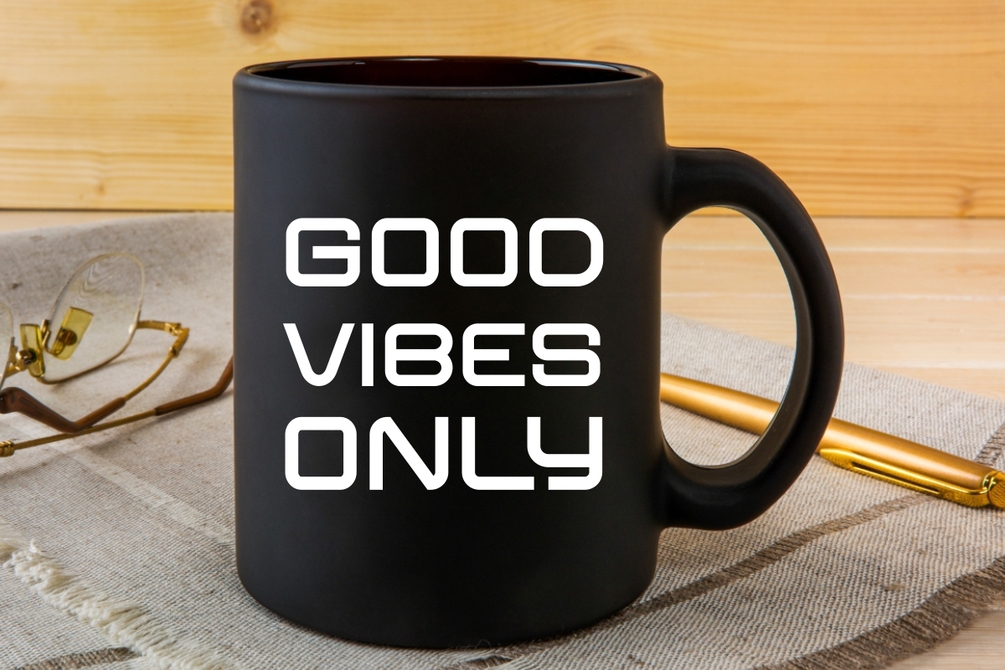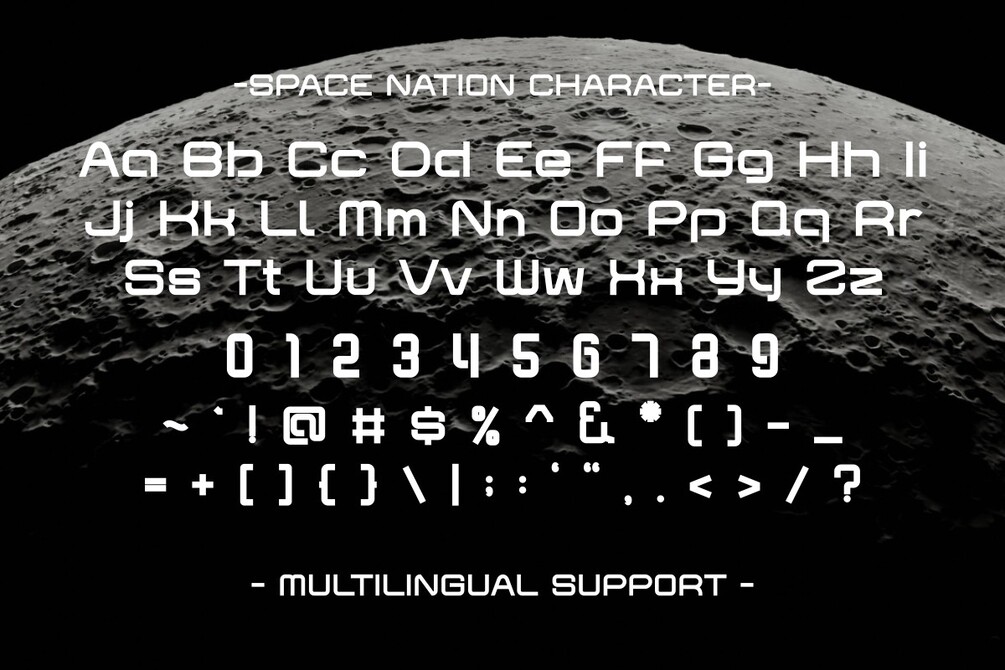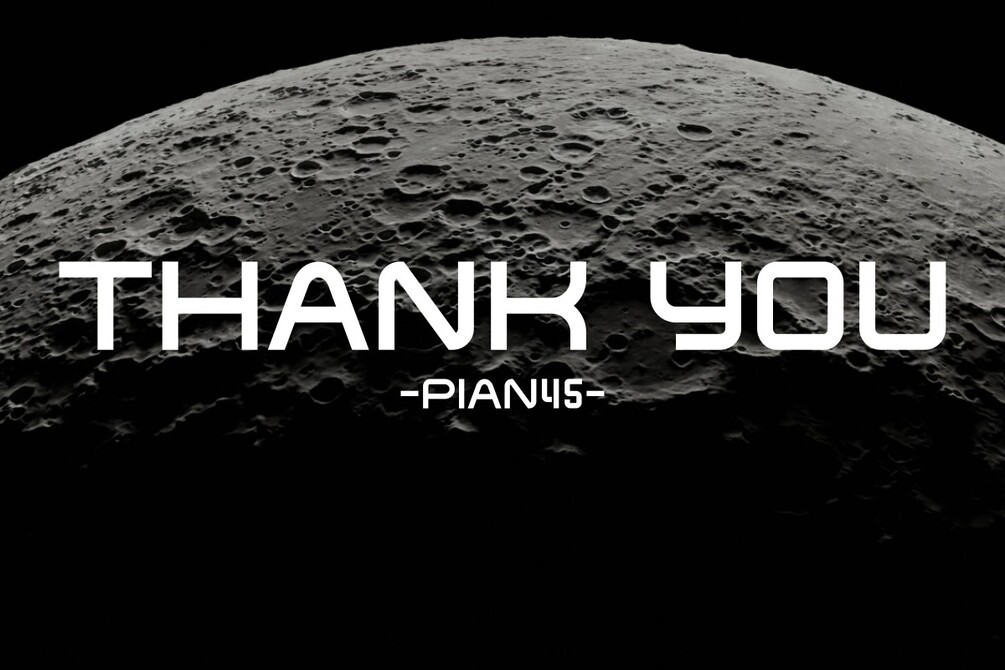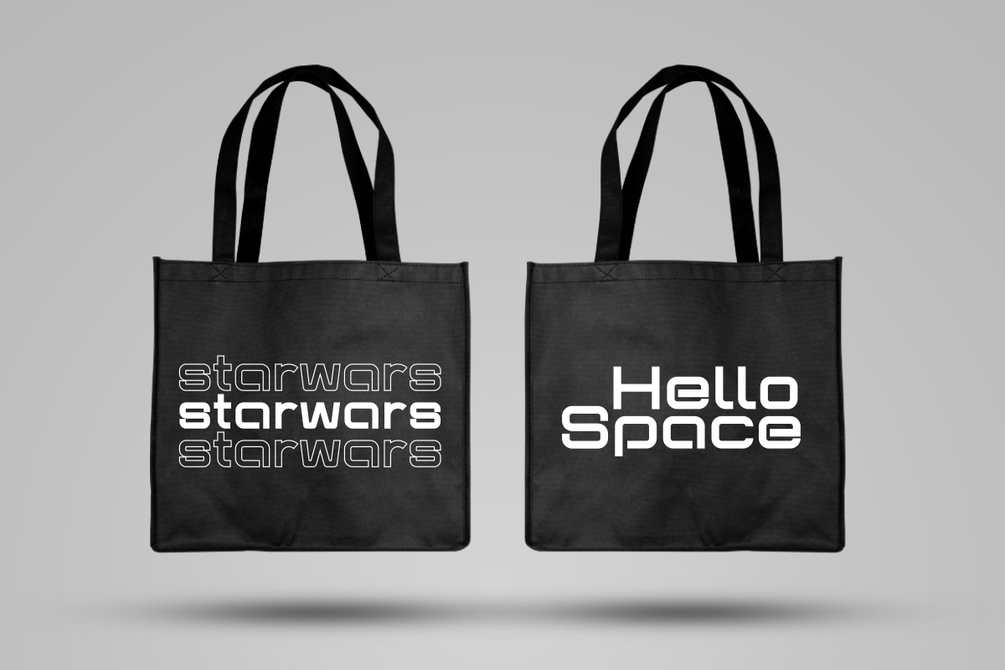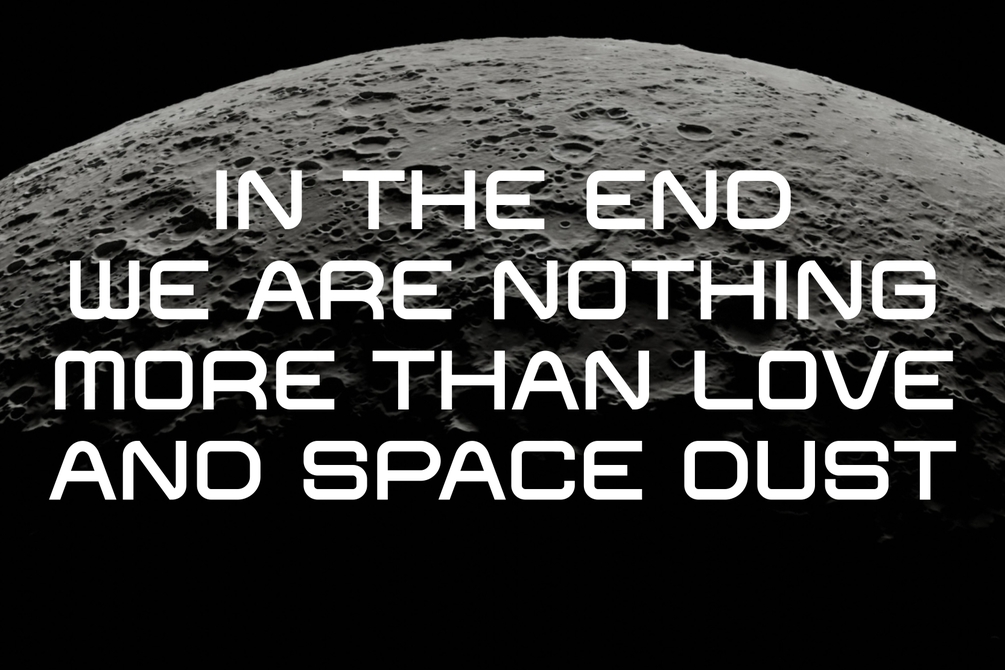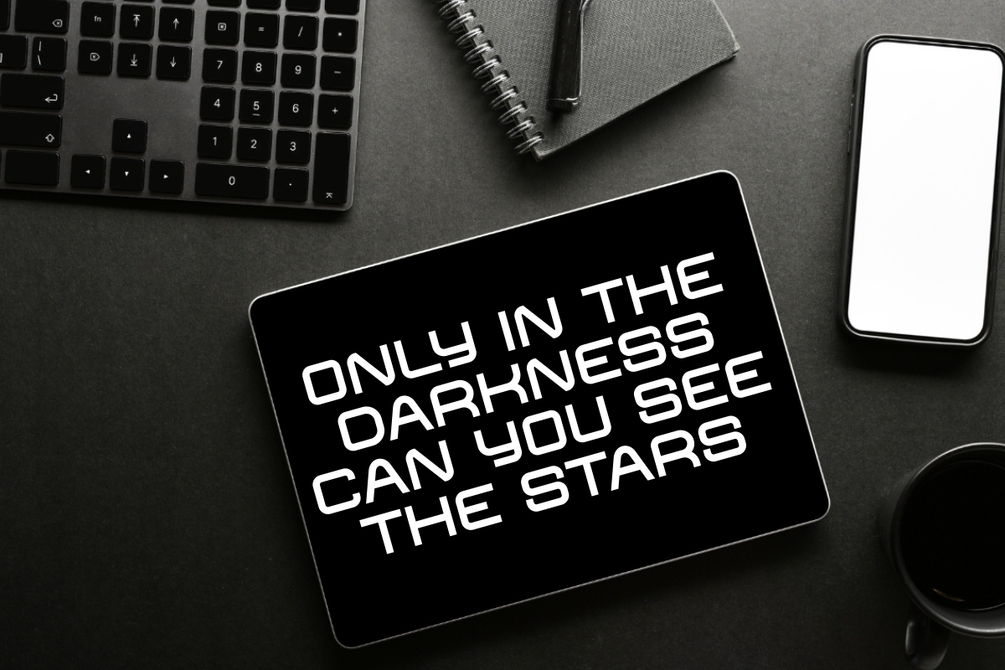
Space Nation - Futuristic Font
Space nation is a futuristic space font that captures the essence of space exploration and innovation. This font embodies the spirit of exploration and discovery. Space nation perfect for projects that demand a touch of cosmic wonder, this font brings the mysteries of the universe to your designs.